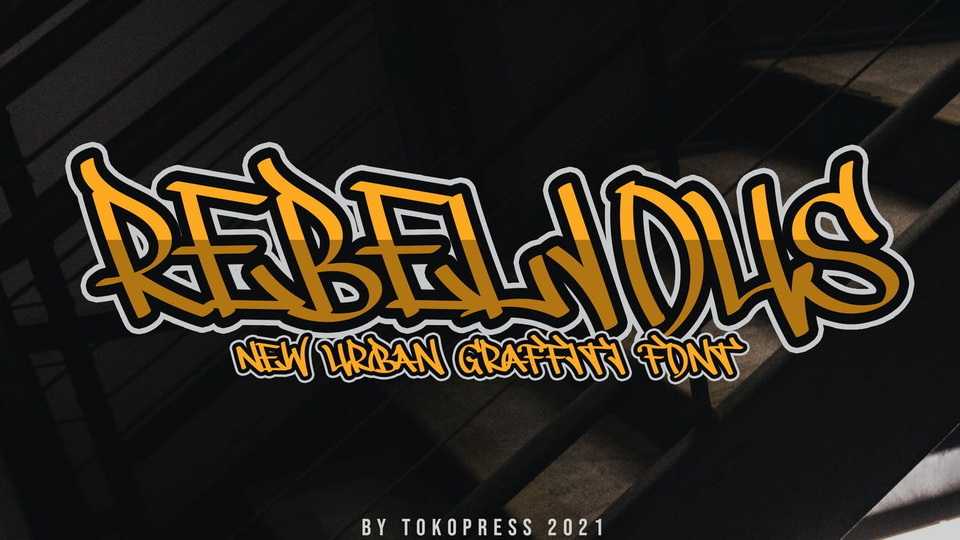
Download Rebelious font, a powerful graffiti typeface. Rebelious font suits perfectly for hip-hop, rebellious and extreme sport segmented magazine, poster, movie title, music poster, YouTube covers, YouTube thumbnails, social media page covers and so on…